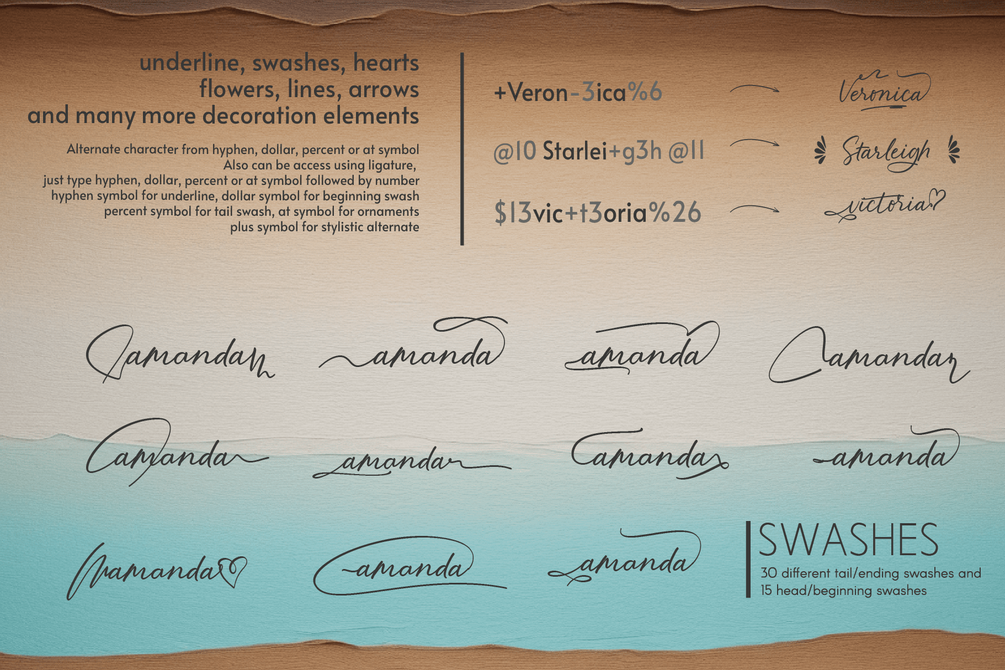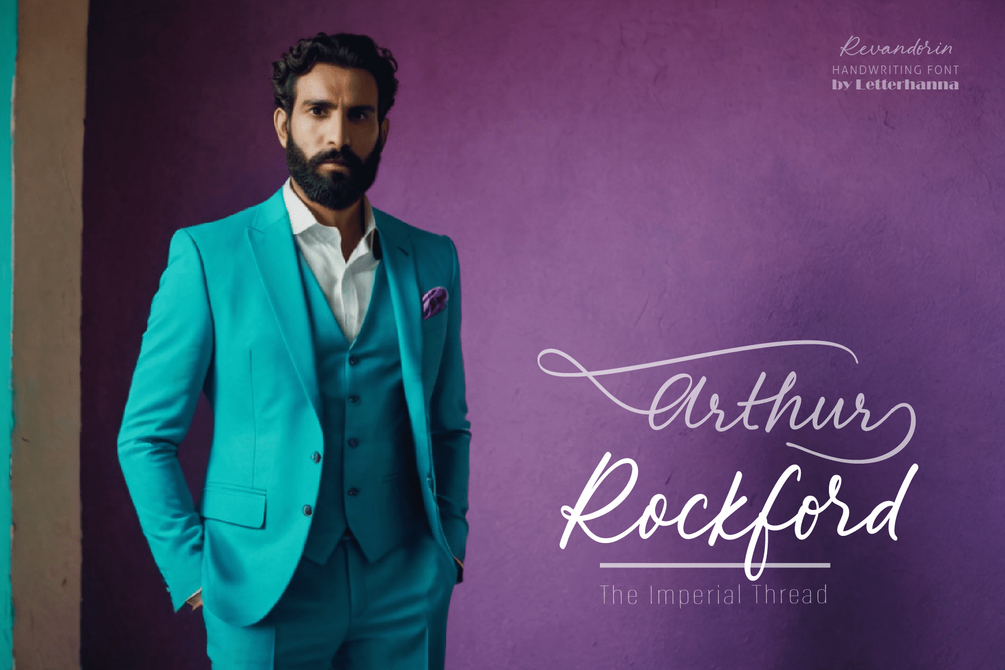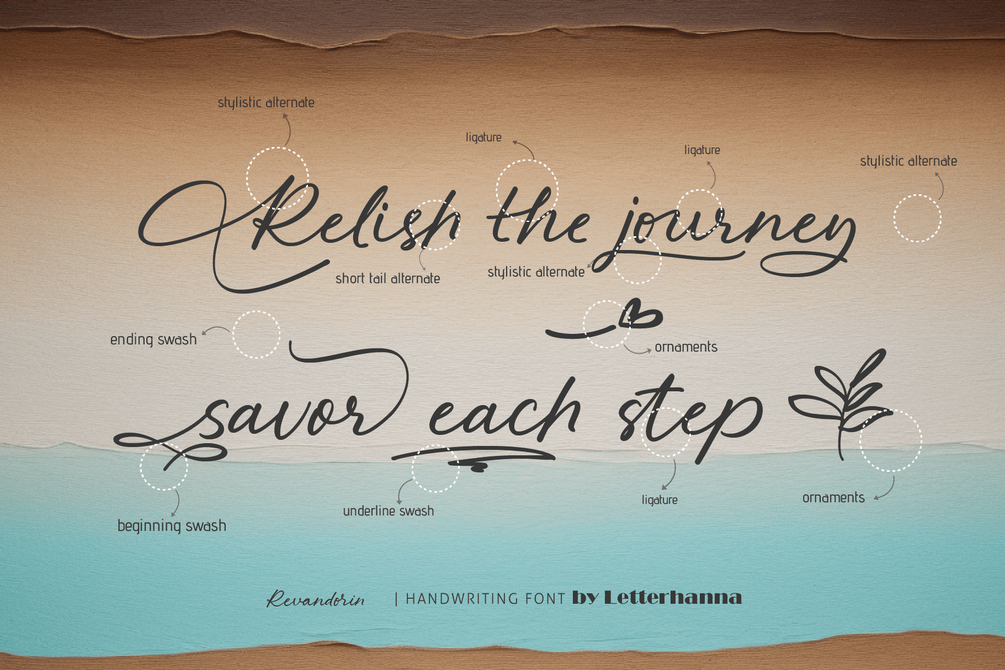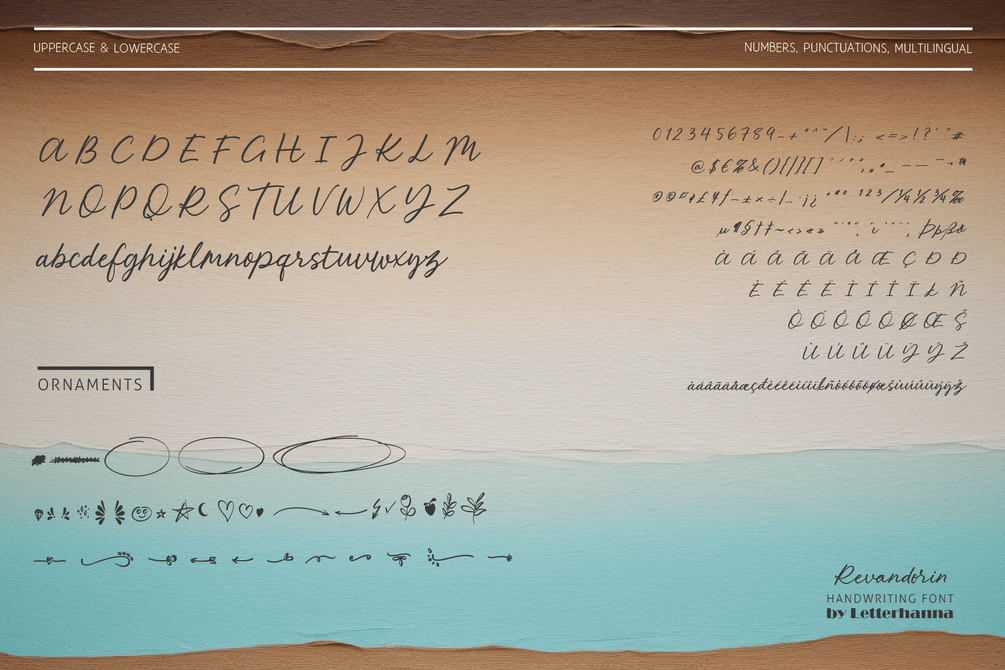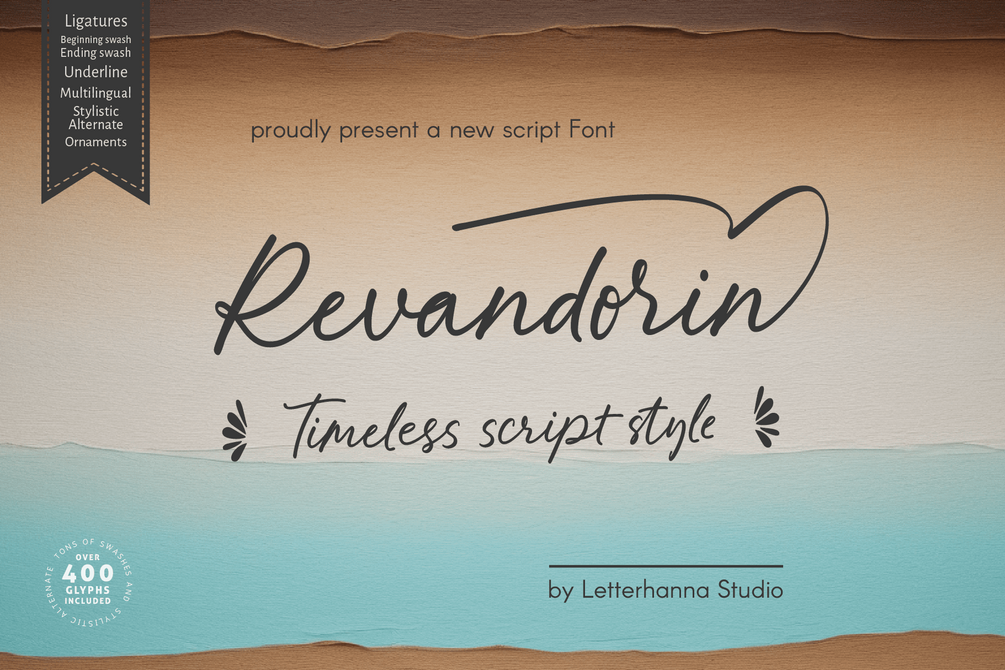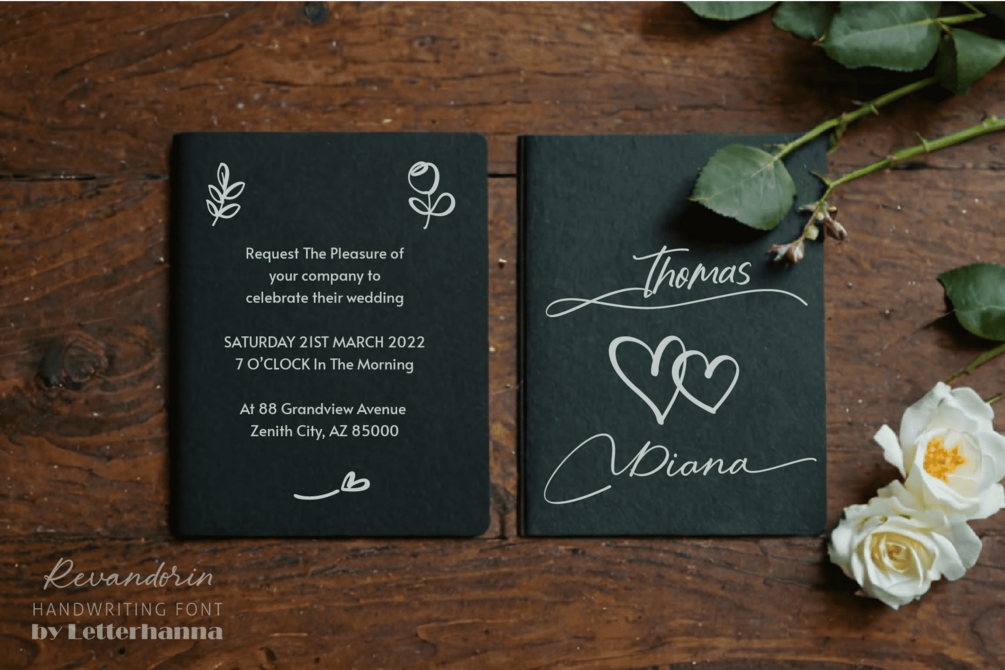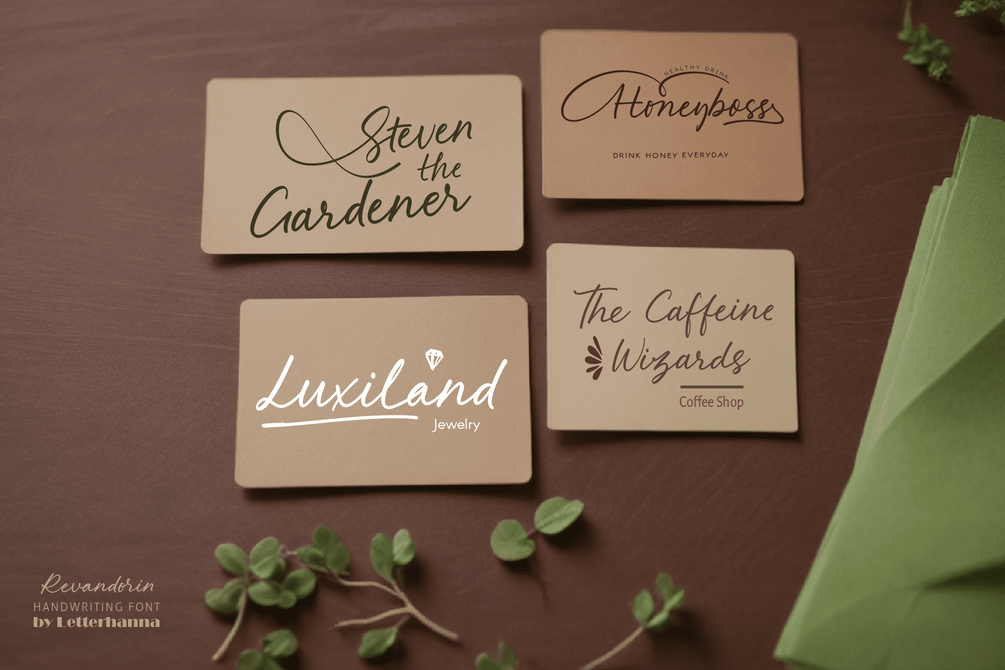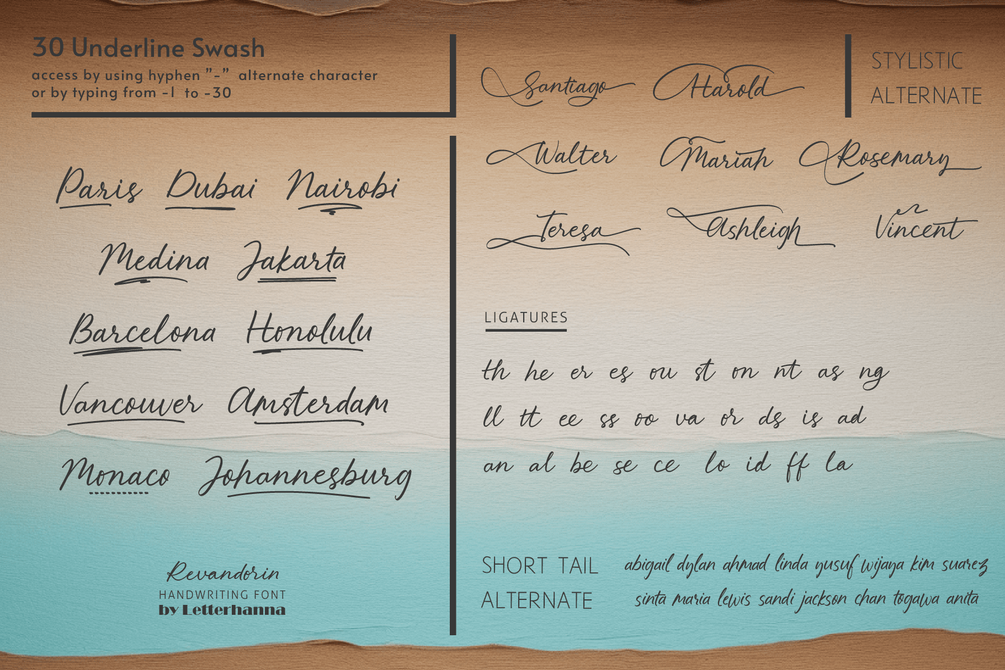
Revandorin Free Font
Introducing Revandorin, a bold script font with elegant upstroke calligraphy. This typeface blends power and grace, making every stroke flow seamlessly. Packed with a variety of alternate styles and ligatures, Revandorin offers endless creative possibilities for branding, invitations, and signature-style designs. Elevate your typography with its bold presence and refined details.